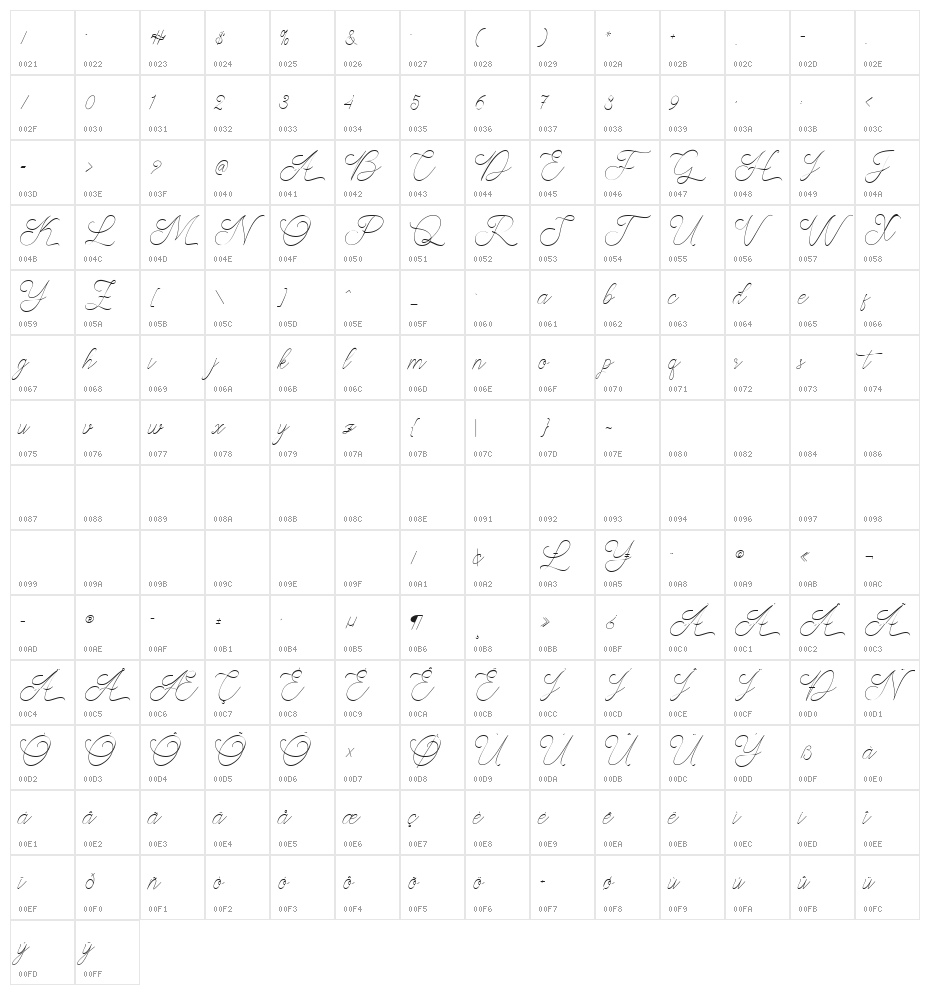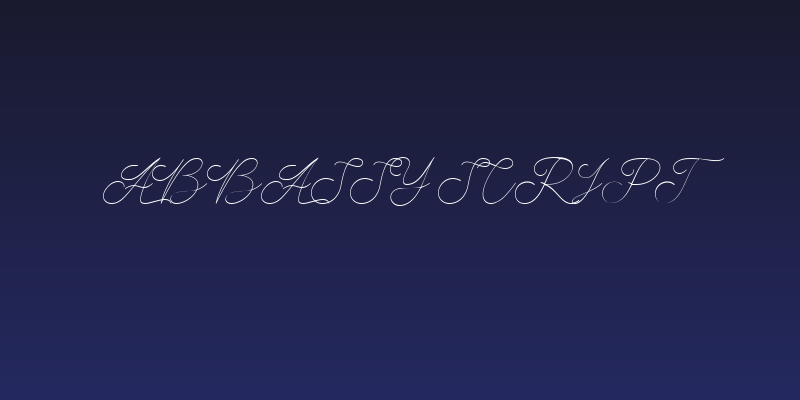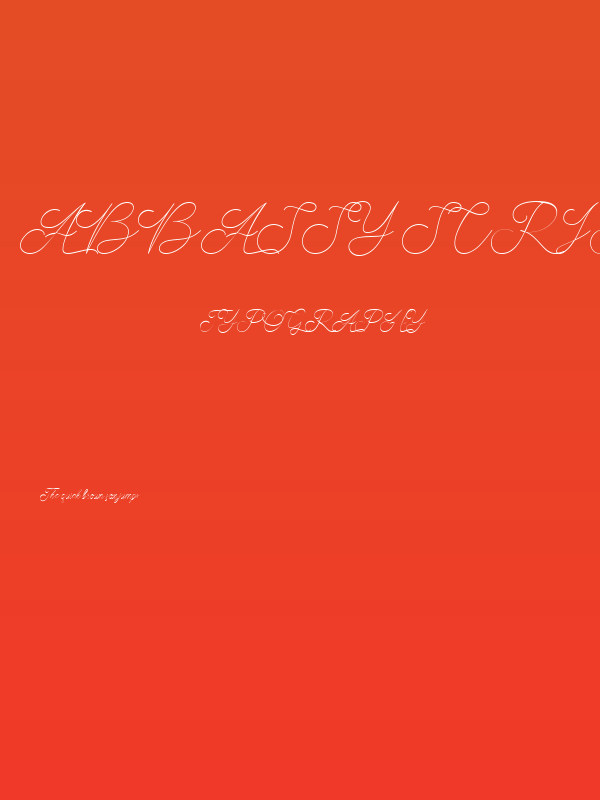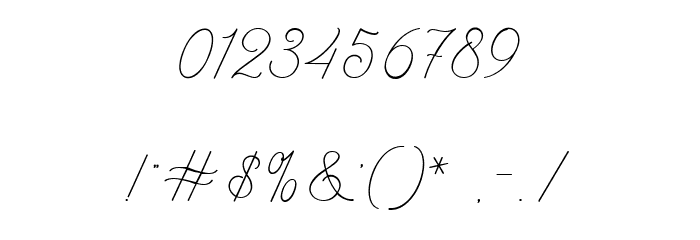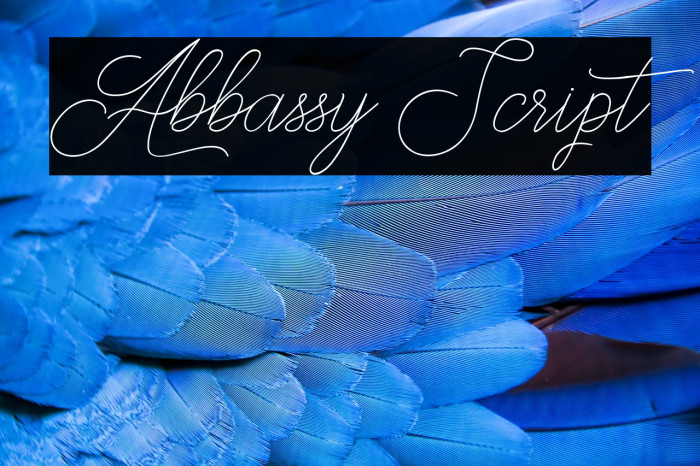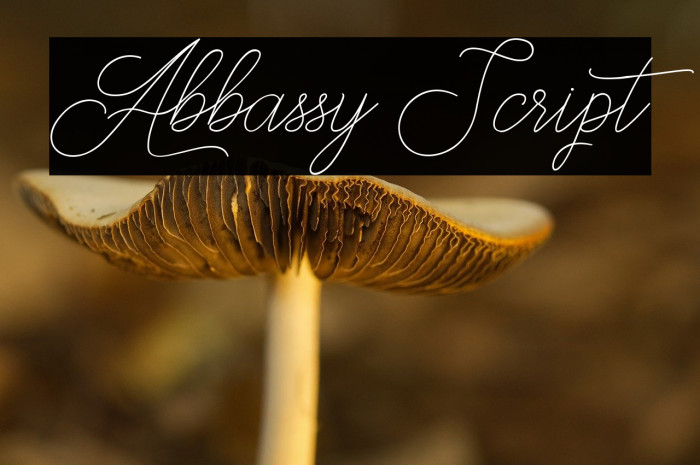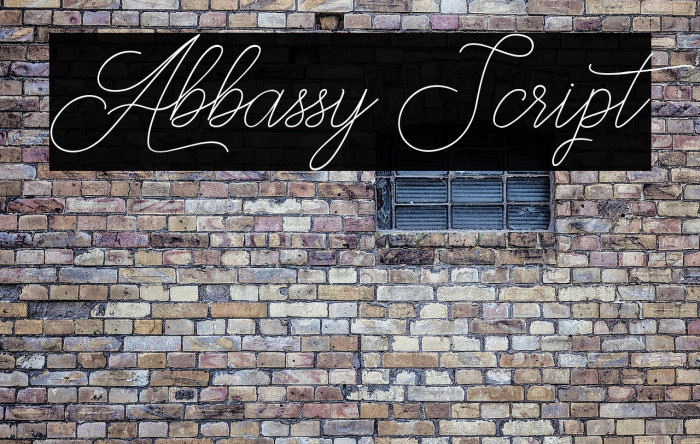
Abbassy Script Font
| 全体的なスタイル | Elegant |
| 用途 | Logos, Invitations, Decorative text |
| おすすめプロジェクト | Ideal for wedding invitations, elegant branding, high-end product packaging, and sophisticated event posters. |